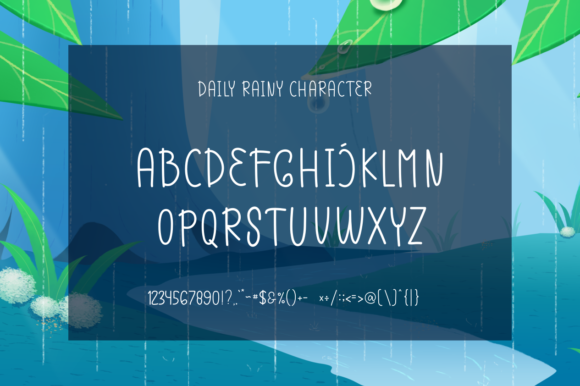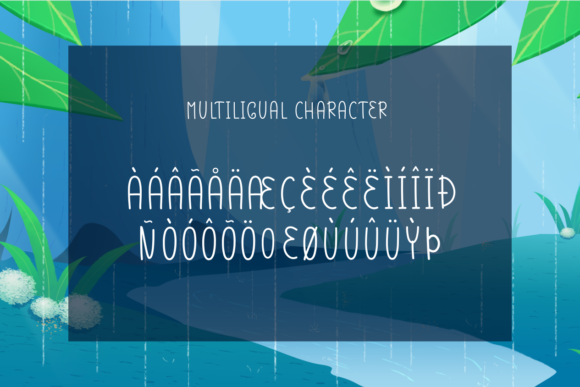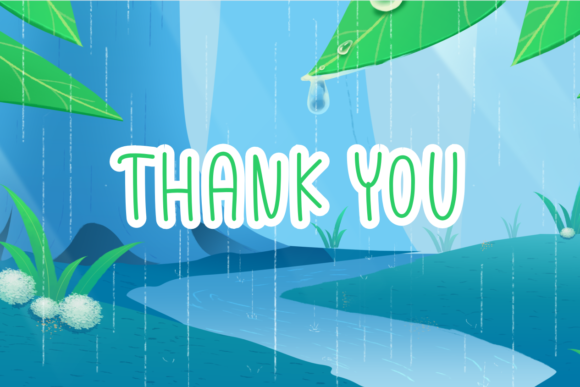
The Daily Rainy Font: A Quirky and Neat Handwritten Delight
- ✨ Unique and quirky handwritten style that’s perfect for branding, packaging, and more
- 💫 Support for OpenType features, glyphs, and stylistic alternates
- 🎨 Versatile and suitable for a wide range of design projects
While Daily Rainy is an amazing font, there are a few things to keep in mind:
- ⚠️ Some characters may not be suitable for body text, due to their unique design
- 🤔 Limited availability of certain glyphs or alternates in certain platforms or software
The Story Behind Daily Rainy
| Font Name | Daily Rainy Font |
| Author | Rahagita Studio |
Q: What type of projects is Daily Rainy suitable for?
A: Daily Rainy is a versatile font suitable for various design projects, including branding, product packaging, invitations, quotes, t-shirts, labels, posters, logos, and more.
Q: Does Daily Rainy support OpenType features?
A: Yes, Daily Rainy supports OpenType features, including glyphs, stylistic alternates, and more.